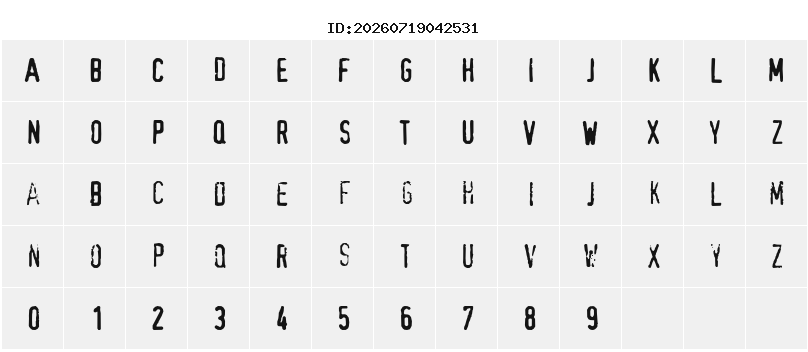
Confidential Preview
• Font Name: Confidential
• Full Font Name: Confidential
About Confidential.ttf
Confidential.ttf is a modern, elegant sans-serif font designed for ultimate readability and visual harmony. Perfect for branding, headlines, web design, and print materials.